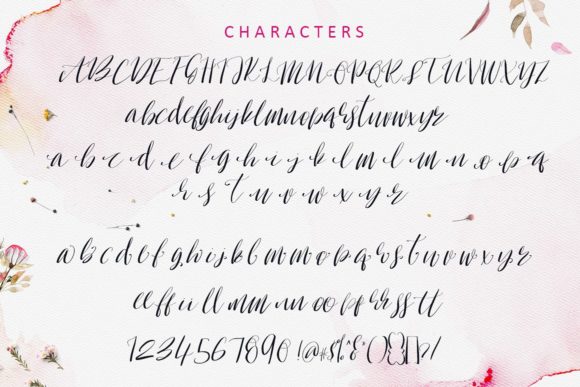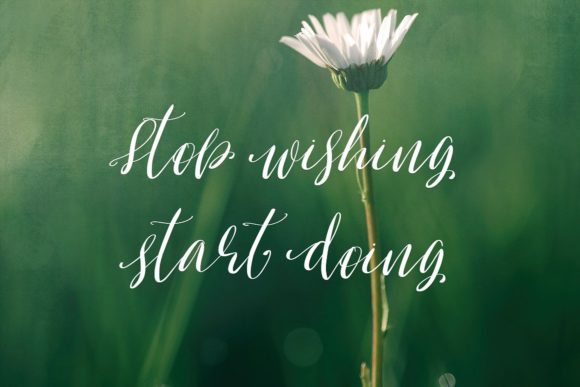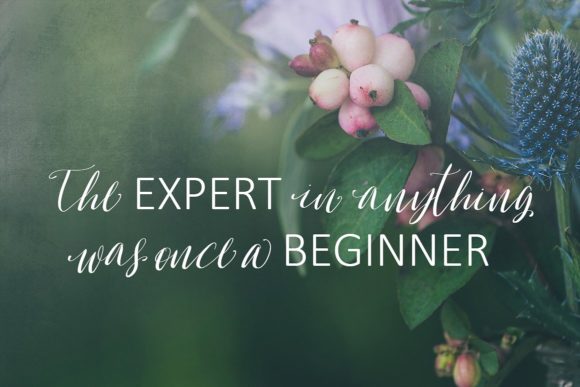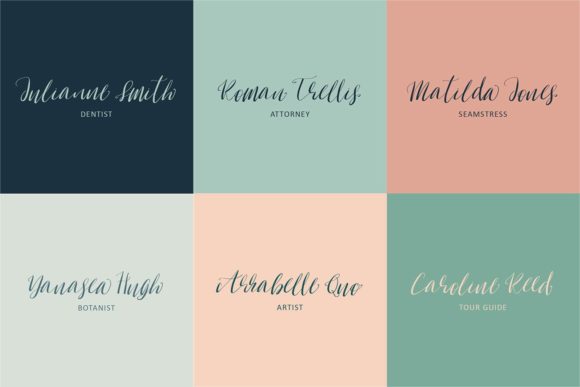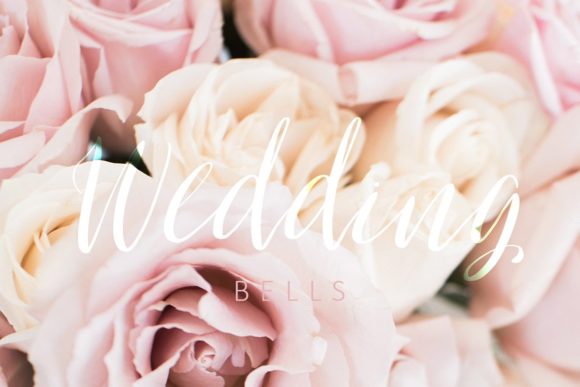
Oh Surrender Font
About Oh Surrender Font
The Oh Surrender is a beautiful handwritten script font. It has a natural, elegant style and is perfect for logos, invitations, quotes, printables, and so much more!